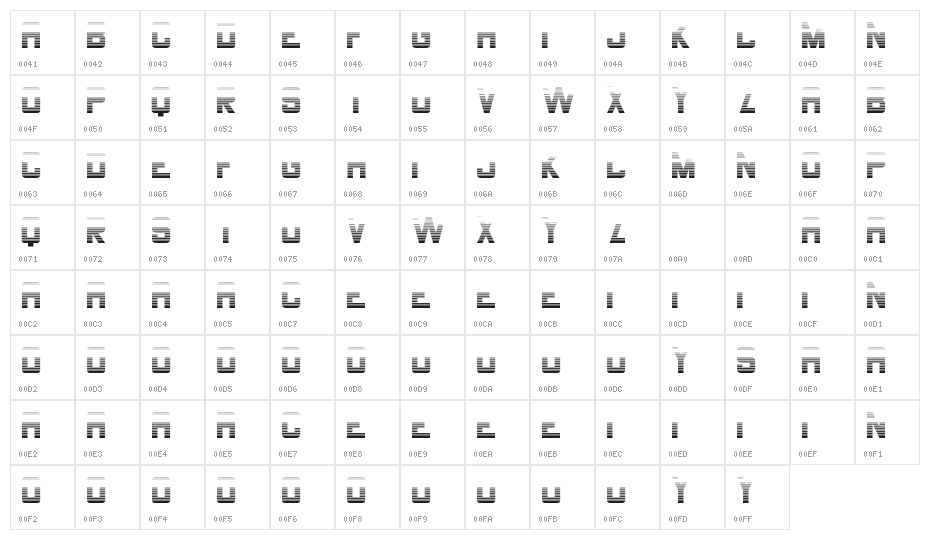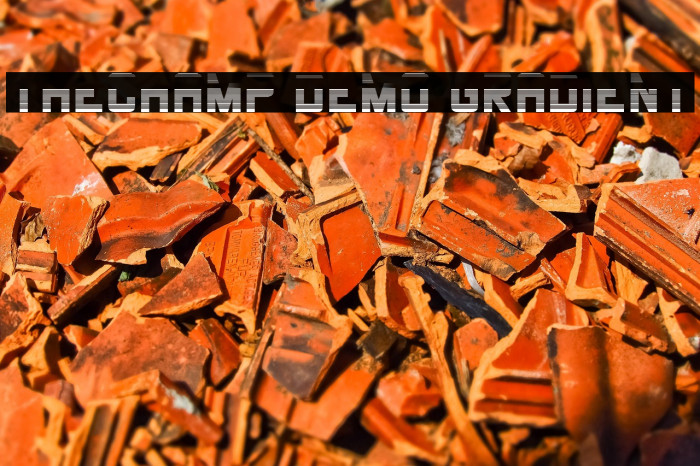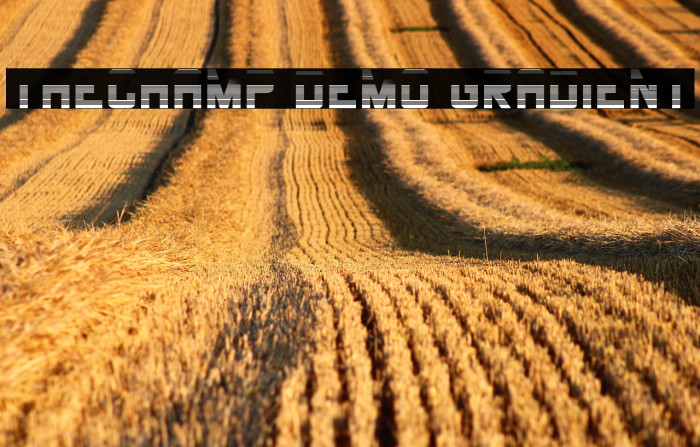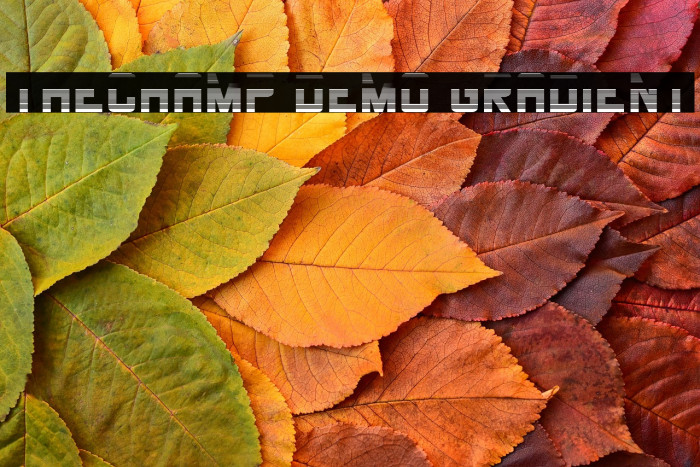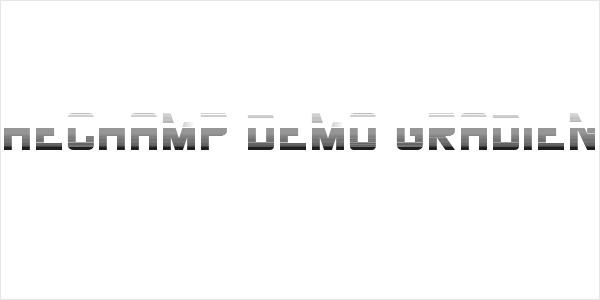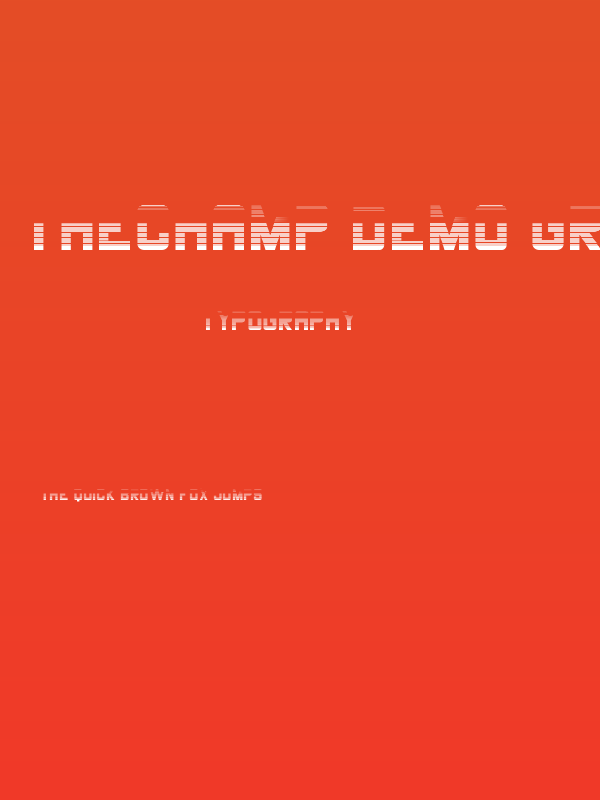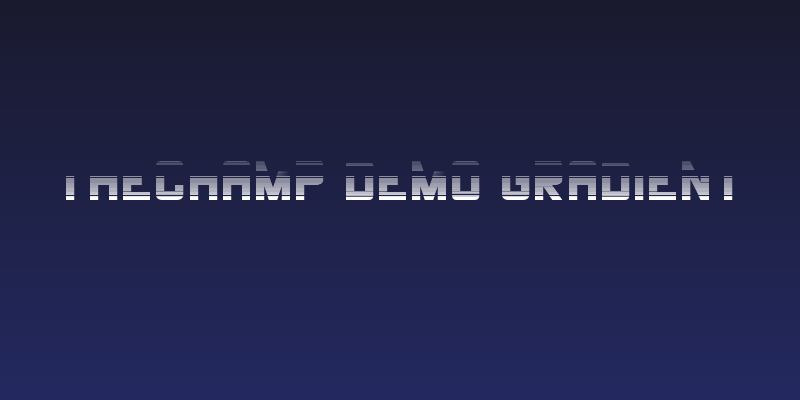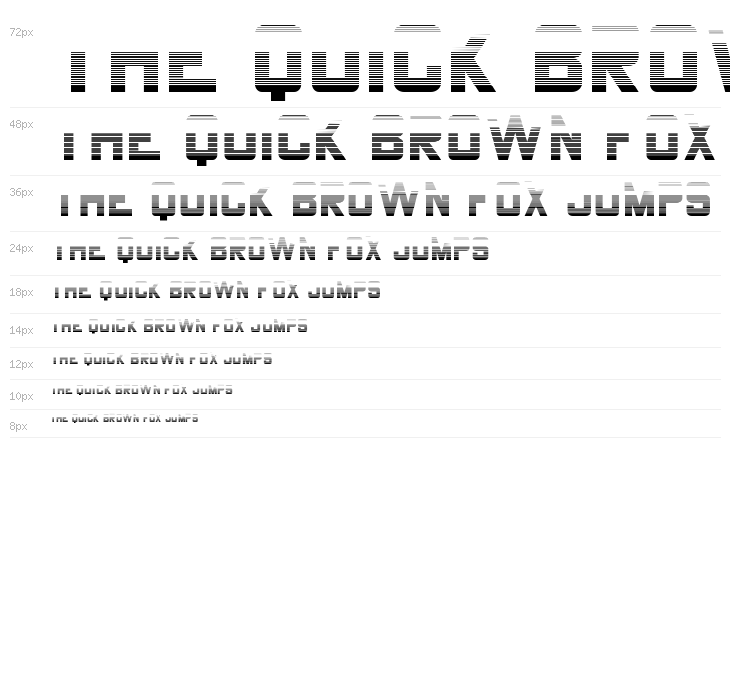
THECHAMP DEMO Gradient Font
THECHAMP DEMO Gradient Description
This font features a bold, modern design with a distinctive gradient effect that gives each character a sense of depth and dimension. The uppercase letters are crafted with a futuristic aesthetic, characterized by clean lines and a structured form. The gradient effect is achieved through a series of horizontal lines that create a visual transition from dark to light, adding a dynamic quality to the text. This style is particularly eye-catching and suitable for projects that require a contemporary and innovative look. The font's unique appearance makes it ideal for use in digital media, advertising, and branding where a strong visual impact is desired.